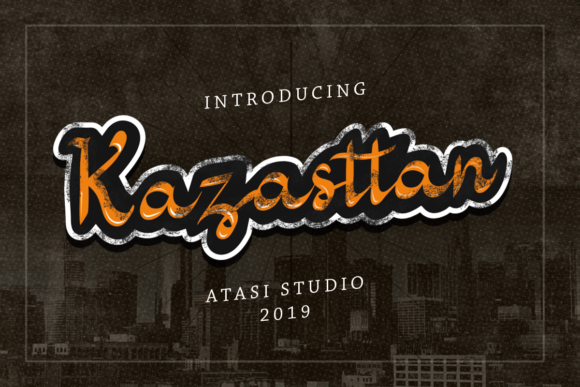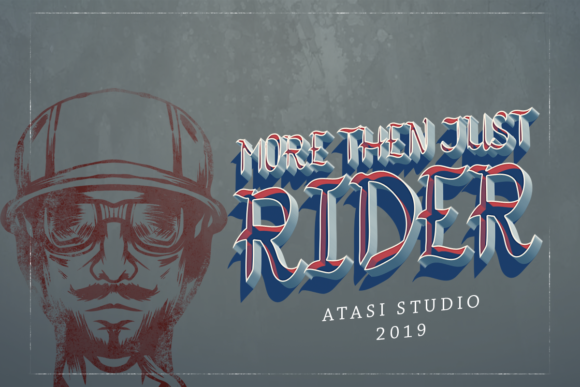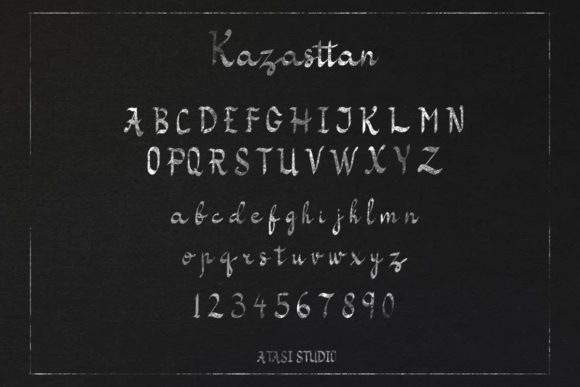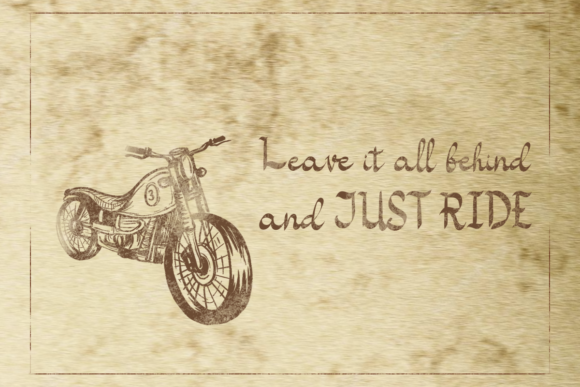
Kazasttan Font
About Kazasttan Font
The Kazasttan is a striking calligraphy script. Its vintage style is perfect for logos, badges, labels, posters, and much more!